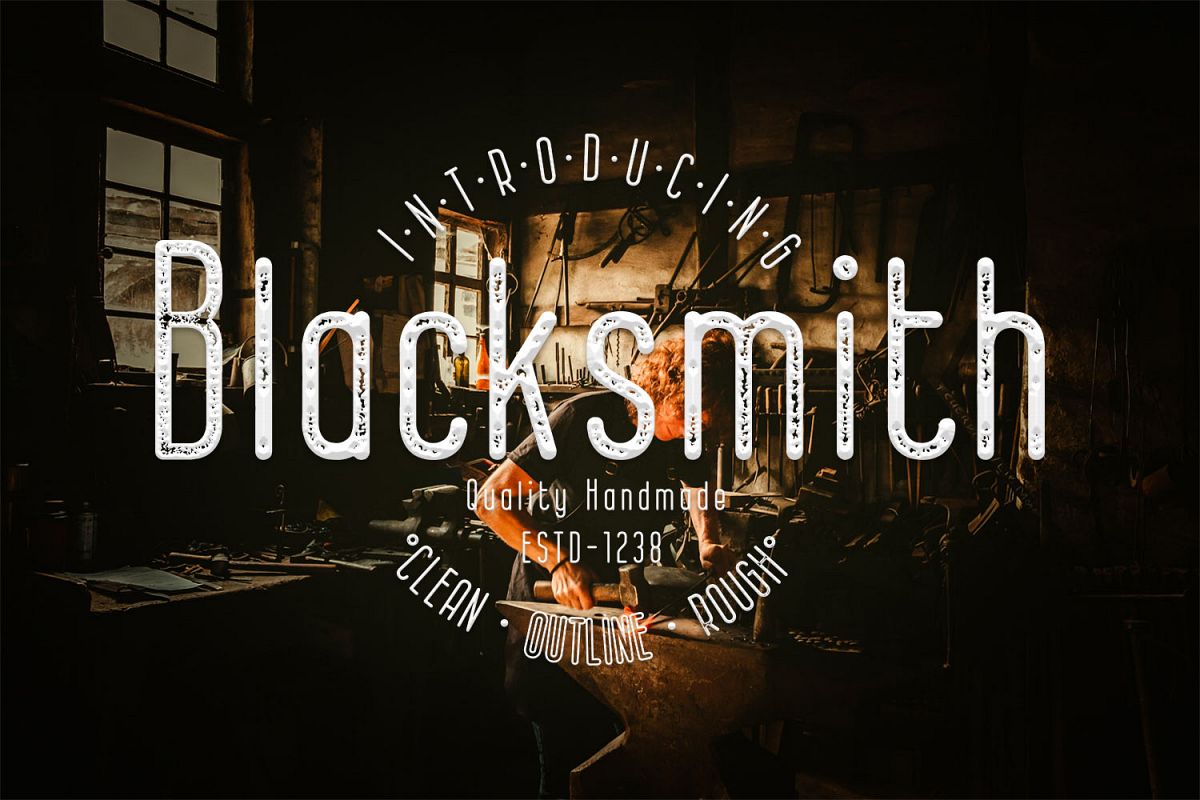
Blacksmith
This time we want to introduce the newest font that we call ‘Blacksmith. This san serif font consists of
three versions, the rough version, the clean version and the outline version.
Inspired by blacksmith, someone who processes rough iron to
fine finishing. This is our representative font which is generally intended for
craft.
You can use the rough version of ‘Blacksmith’ for craft that is vintage, rustic and grunge.
‘Blacksmith clean’  comes in the form of precision monoline and rounded, very slim shape that
presents a minimalist impression, you can use this also for text writing.
The other version is the outline, this type looks fancier
when displayed on its own.
In conclusion, this font can appear with a variety of craft
styles, this is very different from the rough font usually which only impresses vintage.
This is Blacksmith. Font designed specifically for craft
with a grunge, vintage, modern, minimalist and fancy look.
You can also combine all three in one project. Amazing and